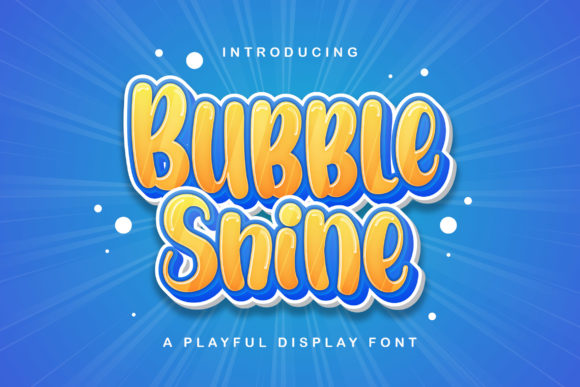
Step into a realm of creativity and expressiveness with Bubble Shine Font, a display font that embodies joy, playfulness, and charm. This typographic masterpiece, hailing from the talented designers at StringLabs, captivates with its delightful curves and bubbly personality. Bubble Shine Font isn't just a font; it's an invitation to let your imagination soar and make a statement that resonates.
With Bubble Shine Font, transform your web designs into eye-catching masterpieces. Let your business cards bloom with a touch of whimsy that sets you apart. Unleash the font's potential in invitations, greeting cards, or any project yearning for a burst of cheerfulness.
Picture this: A poster adorned with Bubble Shine Font, its cheerful characters dancing across the page, beckoning passersby with a smile. Its unique touch adds a layer of charm and warmth that draws them in, making your message truly unforgettable.
Bubble Shine Font isn't just visually stunning; it's a versatile chameleon that adapts to your creative vision seamlessly. Its playful nature makes it a perfect companion for children's books, captivating their young minds with its jovial spirit. Dive into the world of stationery and let Bubble Shine Font dance across notebooks, journals, and planners, transforming them into personal expressions of creativity.
Let Bubble Shine Font be your muse as you create presentations that dazzle. Its bubbly charm will infuse your slides with an energy that captivates audiences, leaving a lasting impression that lingers long after the presentation ends.
While other fonts may settle for blending in, Bubble Shine Font stands out, demanding attention with its vivacious personality. It's a font that speaks to the free-spirited, the dreamers, and the ones who dare to embrace their unique style.
So, embark on this typographic adventure with Bubble Shine Font. Let its joyous spirit ignite your creativity and leave a trail of smiles wherever your designs go. Let your imagination run free and experience the sheer delight of using a font that's as charming and delightful as Bubble Shine Font.